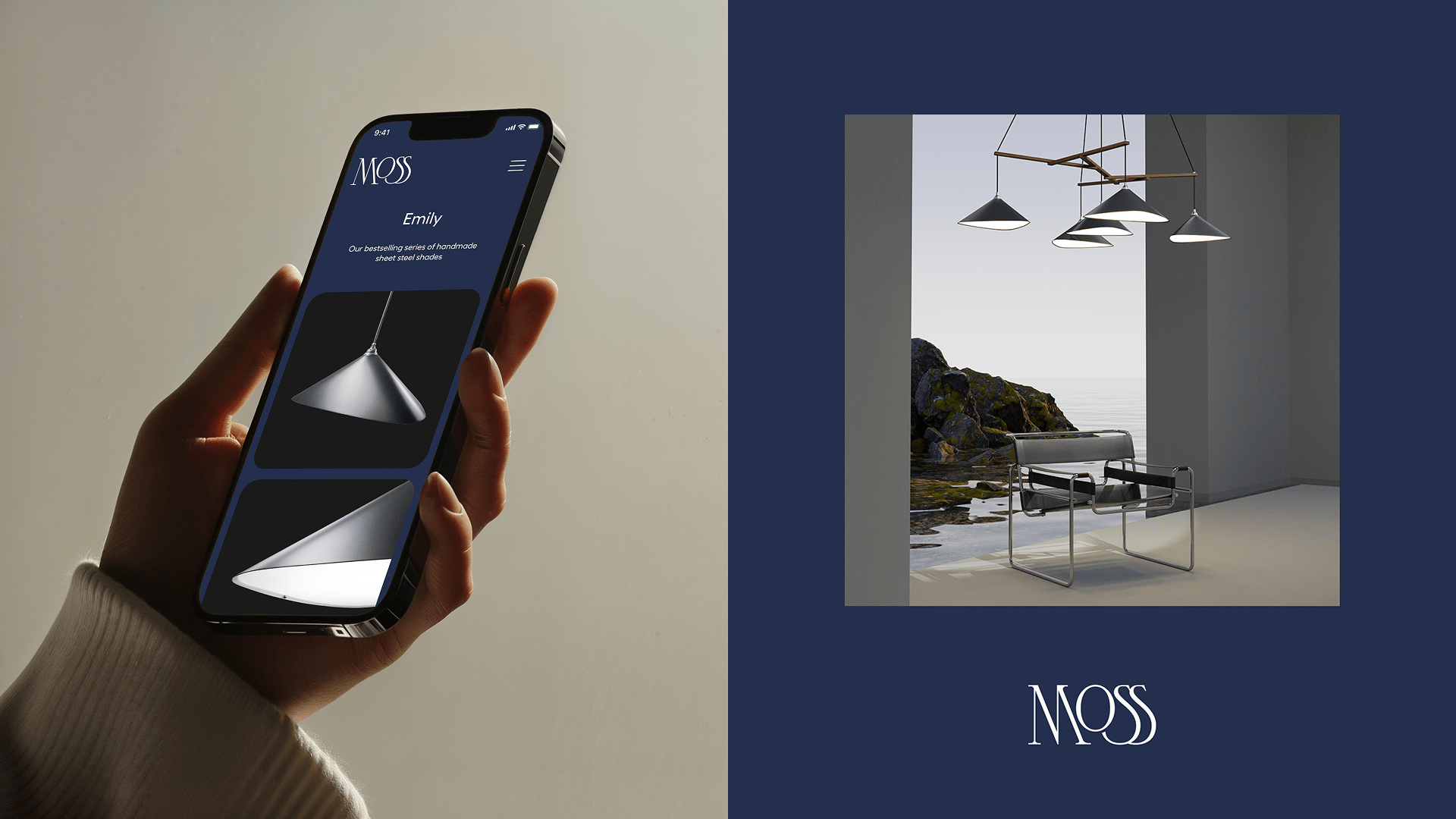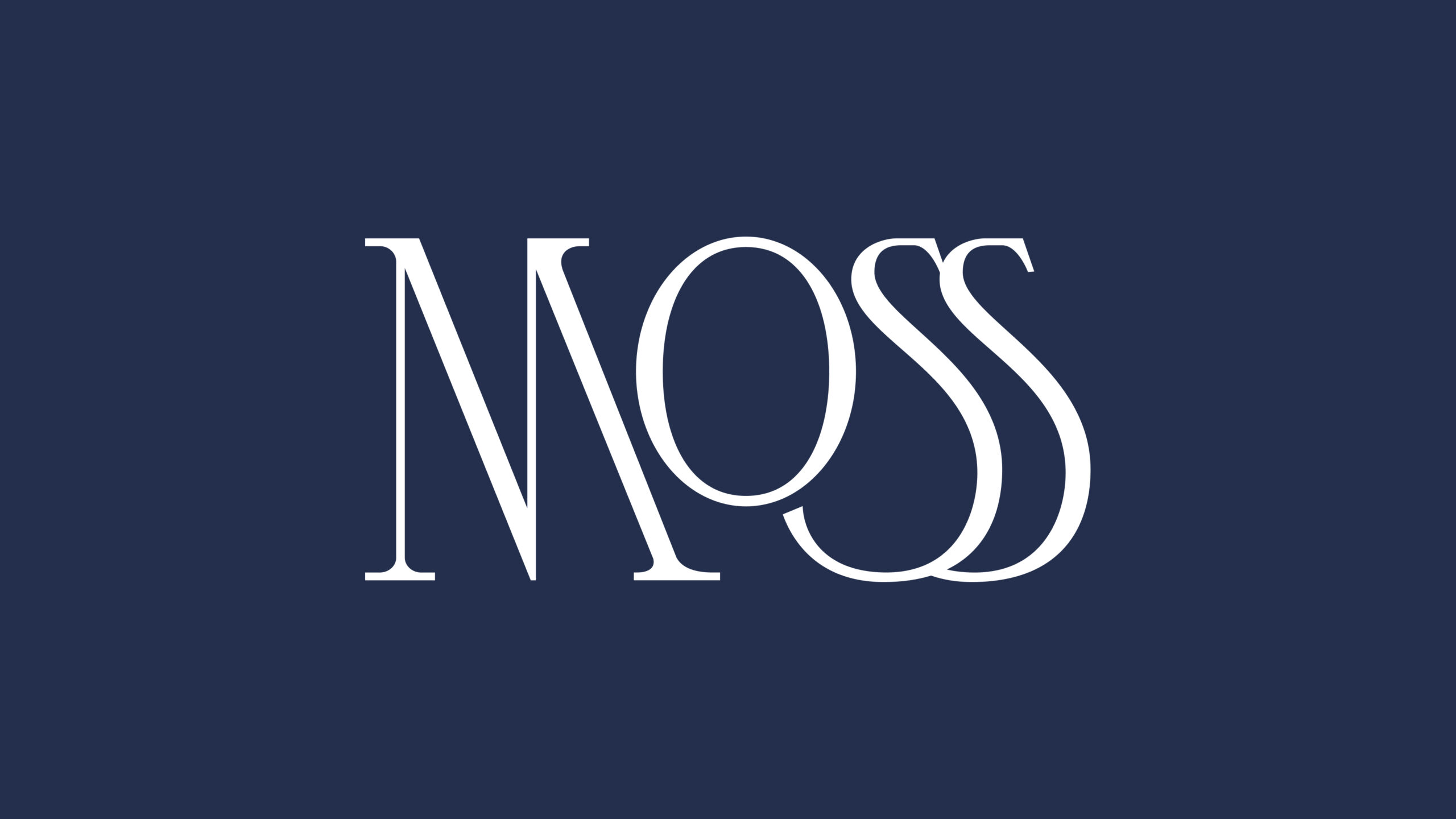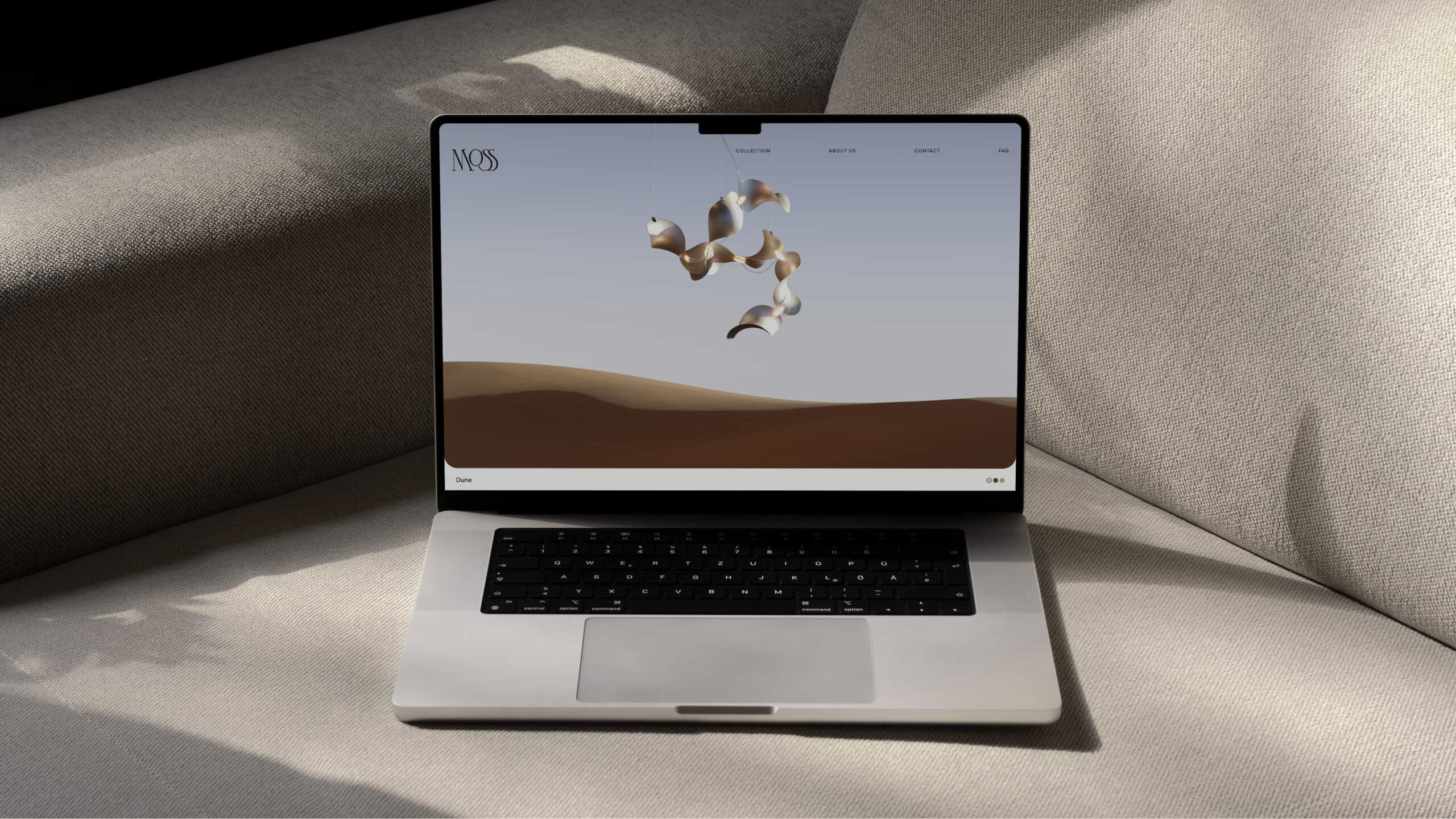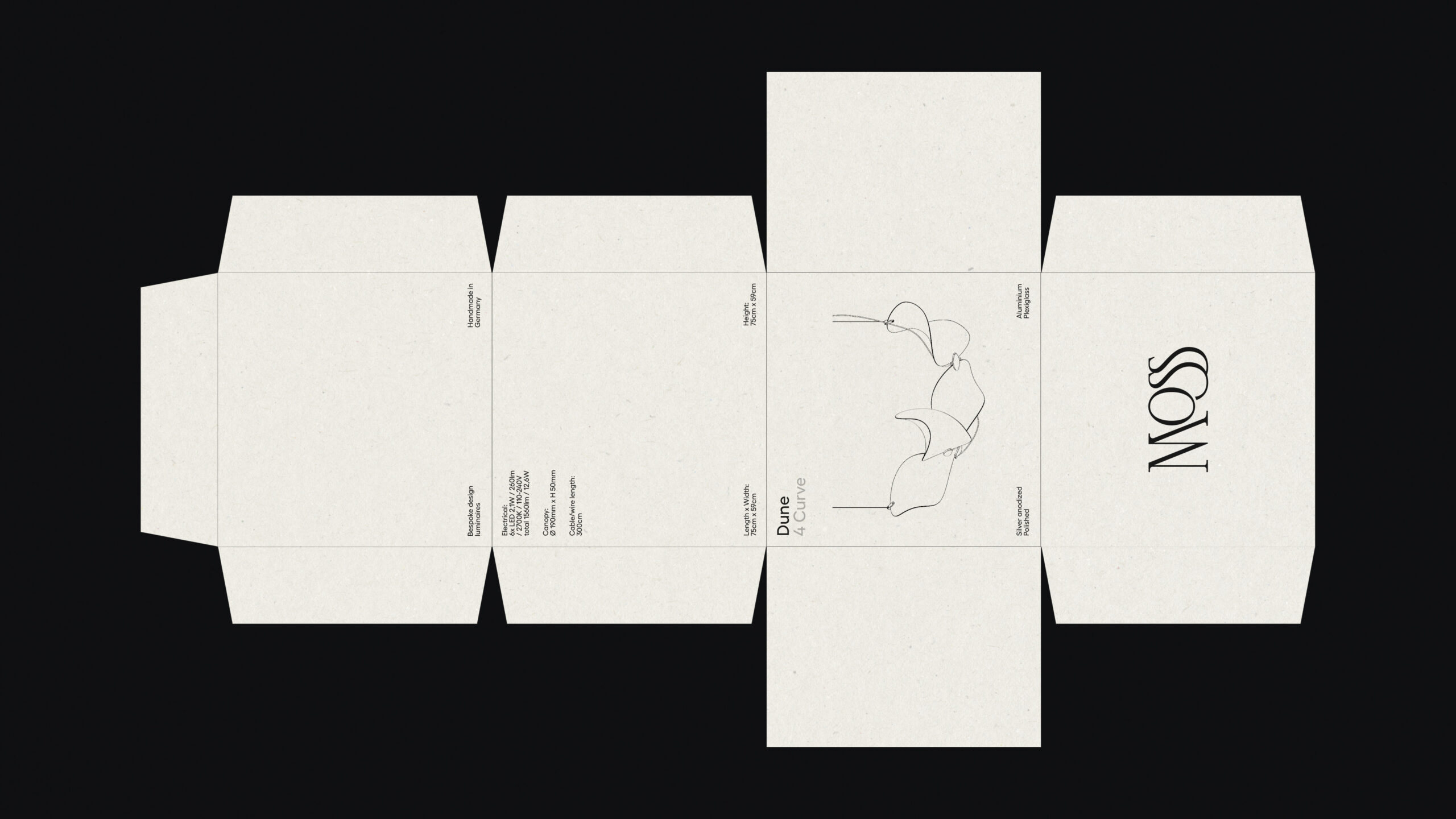
MOSS Objects is a german brand built on craftsmanship. They create custom, handmade luminaires with a supreme level of character and personality. Each piece captures a unique complexity, but also a surprising simplicity. Studio Gruhl was comissioned to create a visual identity that could match distinctive details carried in throughout their catalogue.
The design needed to feel just as elegant and artisanal, ready for the digital world while staying true to the physical objects that inspired it. Studio Gruhl’s solution was a comprehensive system, extending to a full art direction project.
Built for flexibility
The custom logotype for Moss explores serifs and angles, resulting in a sharp and dynamic mark. The design plays with letter sizes, adapting their parts to mantain a logical flow while remaining consisting with the trace. This logo is designed to be flexible. It works seamlessly alongside the variety and evolving nature of the Moss brand. It’s an understated but powerful mark that speaks to the brand’s core values of personality and detail.
A bright design system
Studio Gruhl created a visual playground that feels native to the brand by extracting geometric shapes from the designs of the lamps themselves. The shapes are used to build connections and create patterns, combined with a rich color palette, that also evokes light and shadows through the careful use of gradients. This complete universe is visible in their website, digital applications for social media, and physical products like packaging for the items in the MOSS catalogue.
MOSS Objects and their legacy of light and design
MOSS Objects is a thoughtful fusion of technology and handcraft, creating architectural lighting that is both innovative and personal. Their made-to-order approach emphasizes high-quality materials and a playful take on traditional forms. This commitment to detail and design has established them as a respected name in the industry. It’s a reputation that has earned them features in prestigious publications like Wallpaper, The New York Times Style Magazine, and Architectural Digest, cementing their place in the world of high-end design.
Strategy meets art